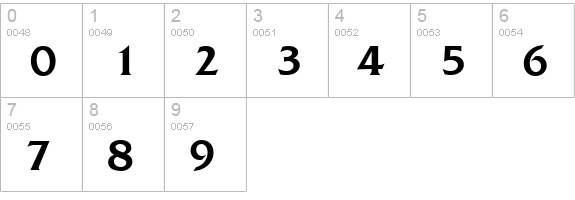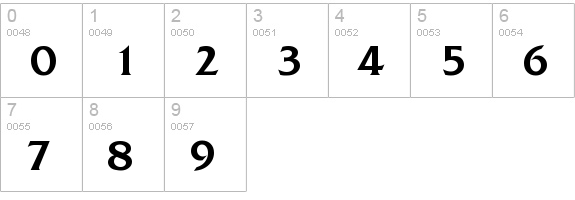
QuadratSerial-Medium-Regular is a balanced, medium-weight variant in the QuadratSerial typeface family \xE2\x80\x94 well suited to sub-headlines, navigation, and balanced editorial work.
QuadratSerial-Medium-Regular font is a versatile and modern typeface that exudes a sense of sophistication and elegance. Its clean lines and balanced proportions make it perfect for a wide range of design projects, from branding to editorial design. The medium weight of this font strikes the perfect balance between impact and readability, making it suitable for both display and body text. What sets QuadratSerial-Medium-Regular apart is not just its aesthetic appeal, but also the fact that it is available for free download at FontsMarket.com. This means that designers and creatives can easily access and use this high-quality font in their projects without any cost. Whether you're working on a professional branding project or a personal creative endeavor, QuadratSerial-Medium-Regular is a versatile font choice that will elevate your design work to the next level.